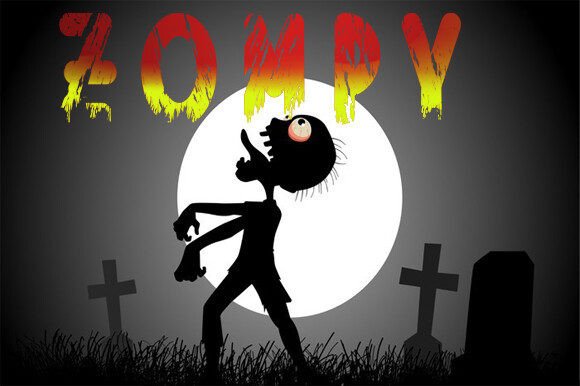
Introducing Zompy Font, the ultimate Halloween-inspired display font that will take your projects to the next level! Created by Evasto Pub, this font is not just your average typeface - it is a captivating blend of spooky, playful, and professional elements that will leave a lasting impression on your audience.
With its unique and attention-grabbing design, Zompy Font is perfect for a wide range of applications. Whether you need to create eye-catching headings, impressive logotypes, memorable quotes, or stunning apparel designs, this font has got you covered. Its versatility knows no bounds, making it the go-to choice for any business or creative endeavor.
Looking to make a statement with your invitations, posters, or flyers? Zompy Font will instantly captivate your audience's attention and set the tone for your event or promotion. Its bold and distinctive characters will ensure that your message stands out from the crowd, leaving a lasting impression on anyone who sees it.
Greeting cards and packaging also benefit greatly from Zompy Font's unique charm. Whether you're sending warm wishes or creating a memorable brand image, this font adds a touch of excitement and personality that is sure to delight your recipients.
Need a font that can enhance your book covers, printed quotes, or album covers? Look no further than Zompy Font. Its Halloween-inspired aesthetic adds a sense of intrigue and excitement, making it the perfect choice for any project that needs a little extra flair.
Movies are all about creating an immersive experience, and Zompy Font is here to help you do just that. Whether you're creating a spooky title sequence or designing a poster that will have moviegoers on the edge of their seats, this font will bring your vision to life and leave a lasting impact on your audience.
But what truly sets Zompy Font apart is the fun it brings to your projects. It injects a dose of excitement, playfulness, and creativity that will instantly elevate your designs. With Zompy Font, you can unleash your imagination and create something truly extraordinary.